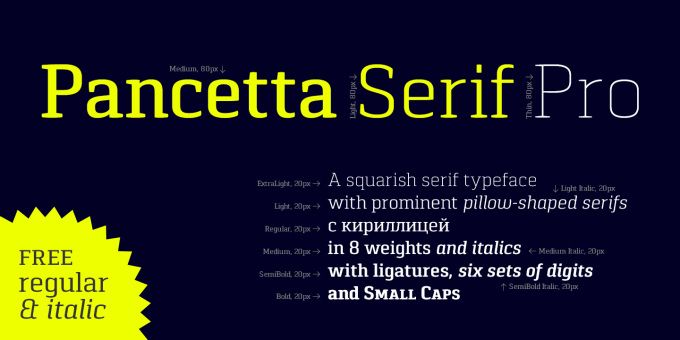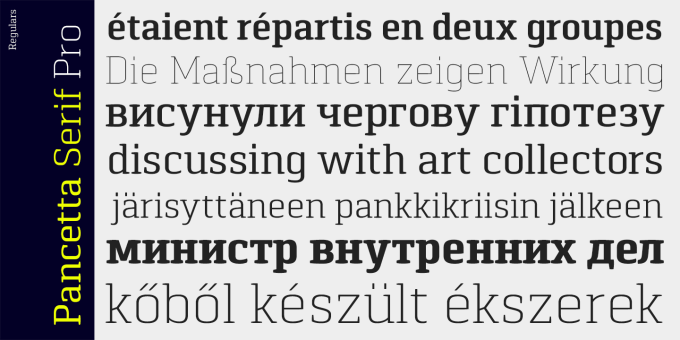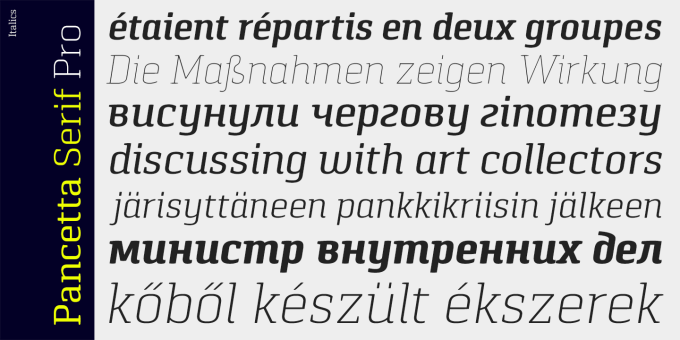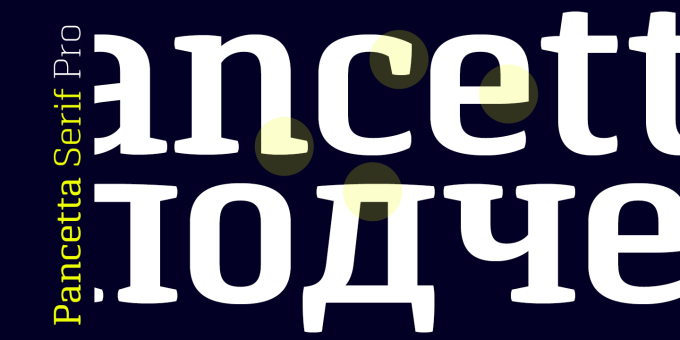
Pancetta Serif Pro
Pancetta Serif Pro is a squarish serif typeface – a natural companion to Pancetta Pro. Its skeleton is a blend of modern serif and slab faces, featuring prominent obtuse pillow-shaped serifs.
Pancetta Serif Pro comes in 8 weights with real italics, with extensive language support and Cyrillic script, and enriched with many OpenType features.